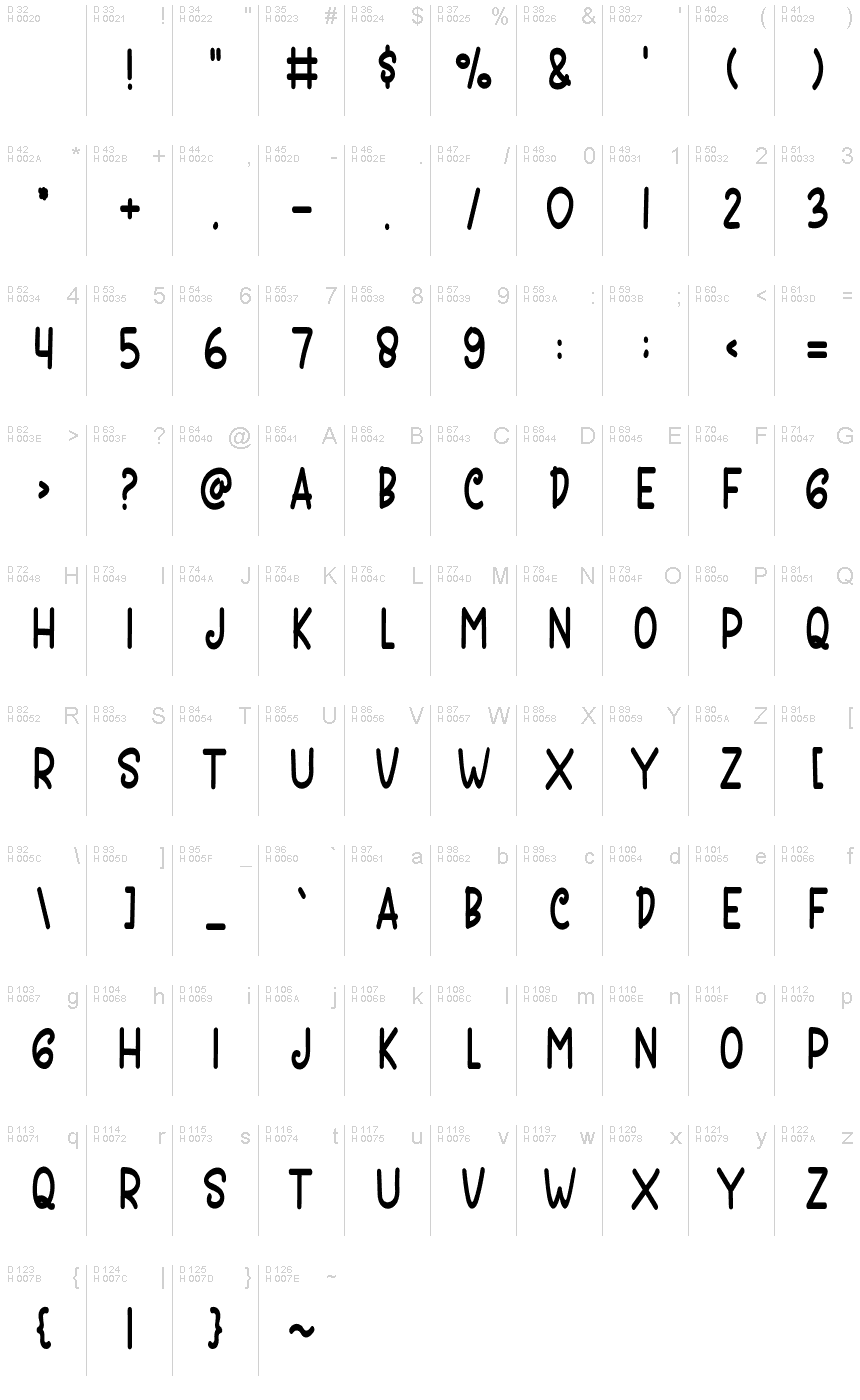
Child Bro
Say hello to Child Bro, the playful and whimsical display font designed by Titik Creative. With its condensed width and cartoon style, this font is perfect for children's books, birthday invitations, and even comic book titles. Let your creativity run wild with Child Bro as it effortlessly adds a touch of fun to any project. Whether you're designing a colorful poster or creating an eye-catching logo for a child-friendly brand, this font will bring the perfect amount of character and charm to your work. Get ready to watch your designs come alive with the help of Child Bro!